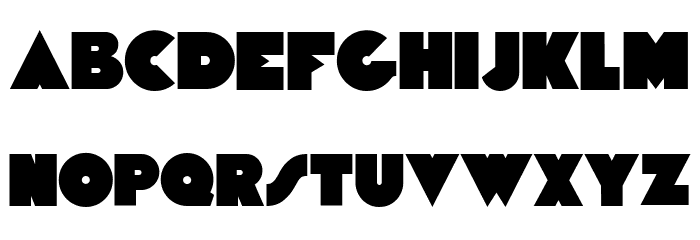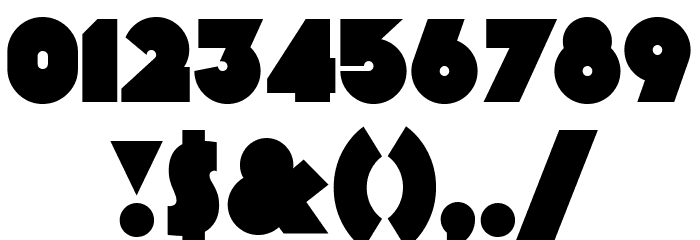
Ciclope Black Black Font
This bold and striking font features a geometric and angular design with a strong presence. The uppercase and lowercase letters are crafted with sharp edges and a uniform thickness, creating a cohesive and modern look. The numbers and special characters follow the same design principles, ensuring consistency across all elements. The font's boldness and unique style make it ideal for attention-grabbing headlines and impactful designs. Its geometric shapes and solid structure give it a contemporary and dynamic feel, suitable for modern branding and creative projects.
A bold, geometric font with sharp edges and a modern style.
- Proposed Projects: Ideal for branding, posters, headlines, and any design requiring a strong visual impact.